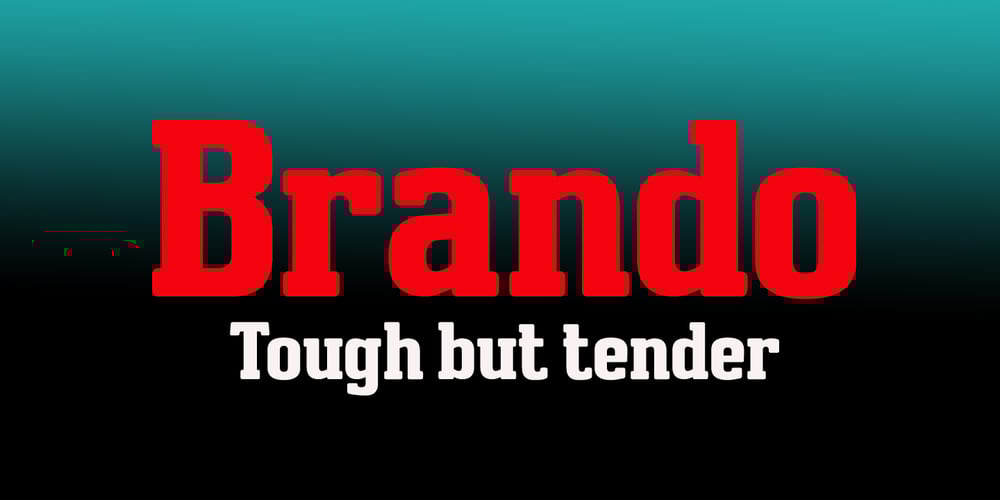
Brando Font Family was designed by Keith Tricker and published by Studio K. Brando contains 2 styles and family package options. Brando is a rounded slab serif that is both firm and gentle, soft and strong. It’s a versatile display face ideal for branding, titling and headlines where warmth and weight are of equal importance.